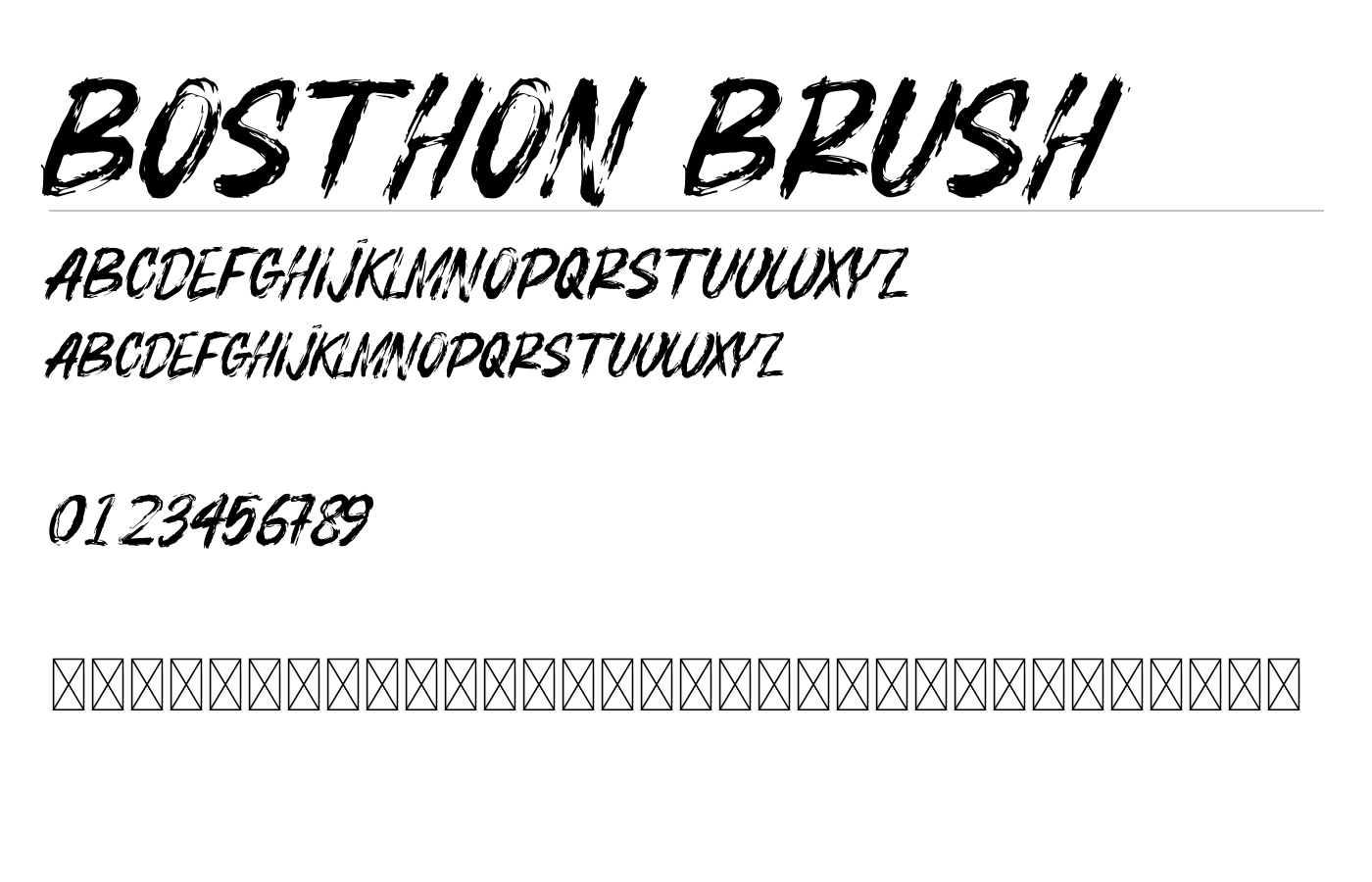
Bosthon Brush is a bold, energetic brush script font with a textured, hand-painted feel that conveys creativity and spontaneity. Its uneven strokes and dynamic movement make it perfect for eye-catching headlines, packaging, and branding projects that want to evoke a lively, artistic vibe. This font works especially well where a natural, informal, yet impactful style is desired.
BOSTHON BRUSH Font
About BOSTHON BRUSH Font
| Font family | BOSTHON BRUSH Font |
| Designer | Ardyanatypes |